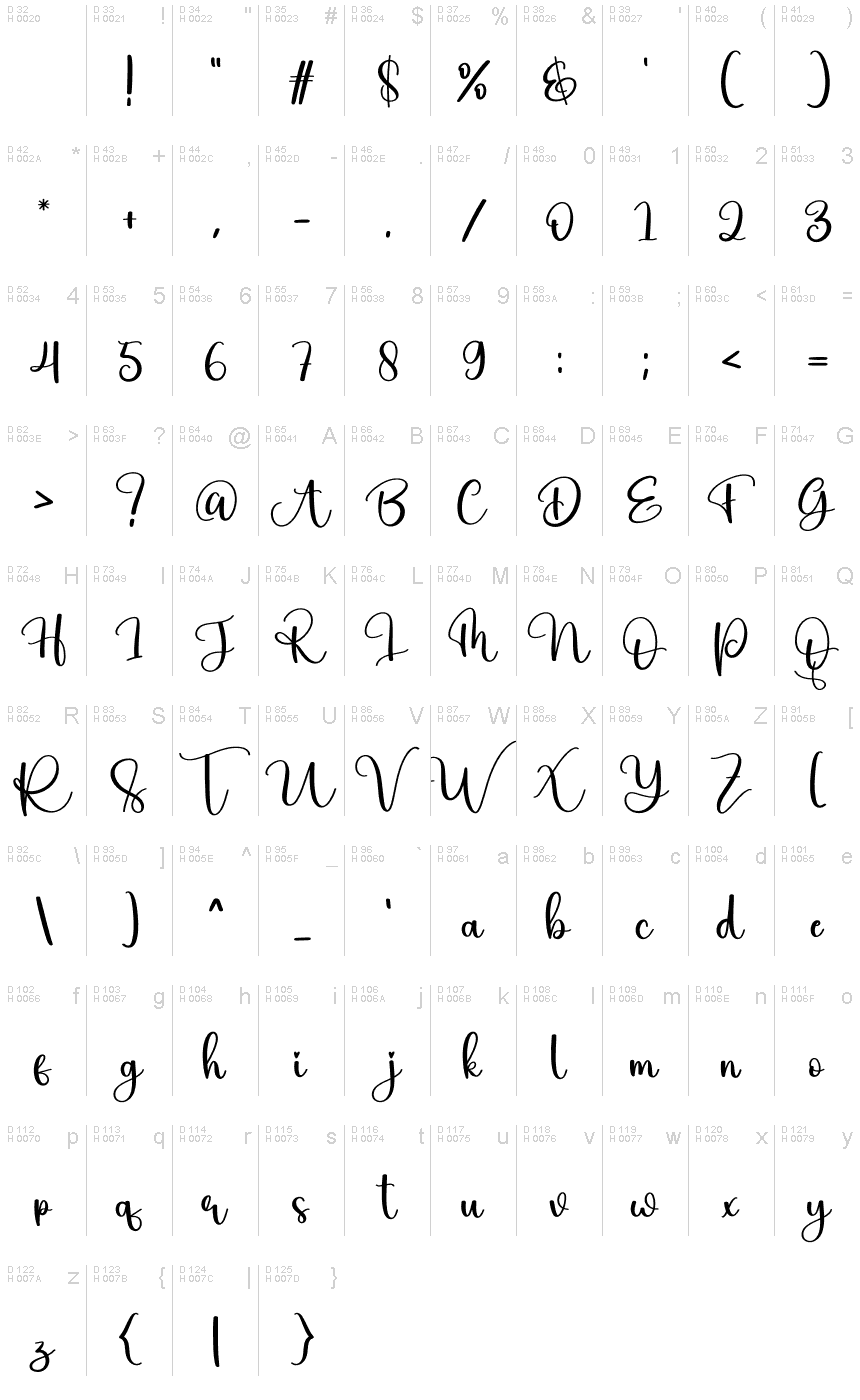
Bigfood
Bigfood, a captivating calligraphy font by scratchones, brings elegance and grace to your projects. Its semi-light weight adds a delicate touch to any design, making it perfect for wedding invitations, feminine branding, and luxury product packaging. Delight your audience with its flowing curves and smooth strokes, creating an enchanting atmosphere. Whether you're designing a logo for a high-end beauty brand or crafting stunning social media graphics, Bigfood will infuse your work with sophistication and charm. Elevate your designs with this font that embraces the art of handwritten expression.
the latest style letters are perfect for wall displays, wedding invitations, social media post logos, advertisements, product packaging, product designs, labels, photography, watermarks, invitations, stationery, and any project that requires taste handwriting.